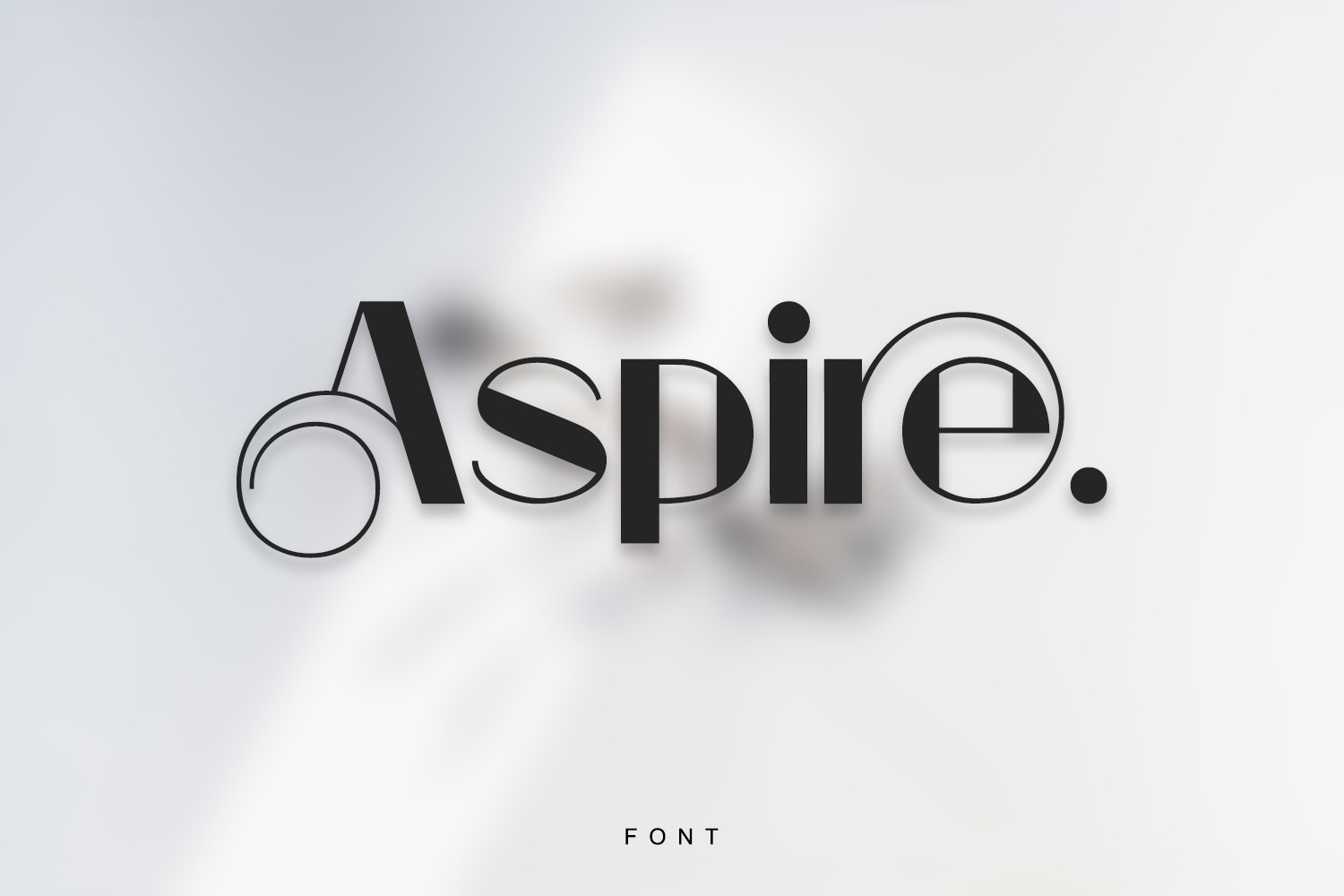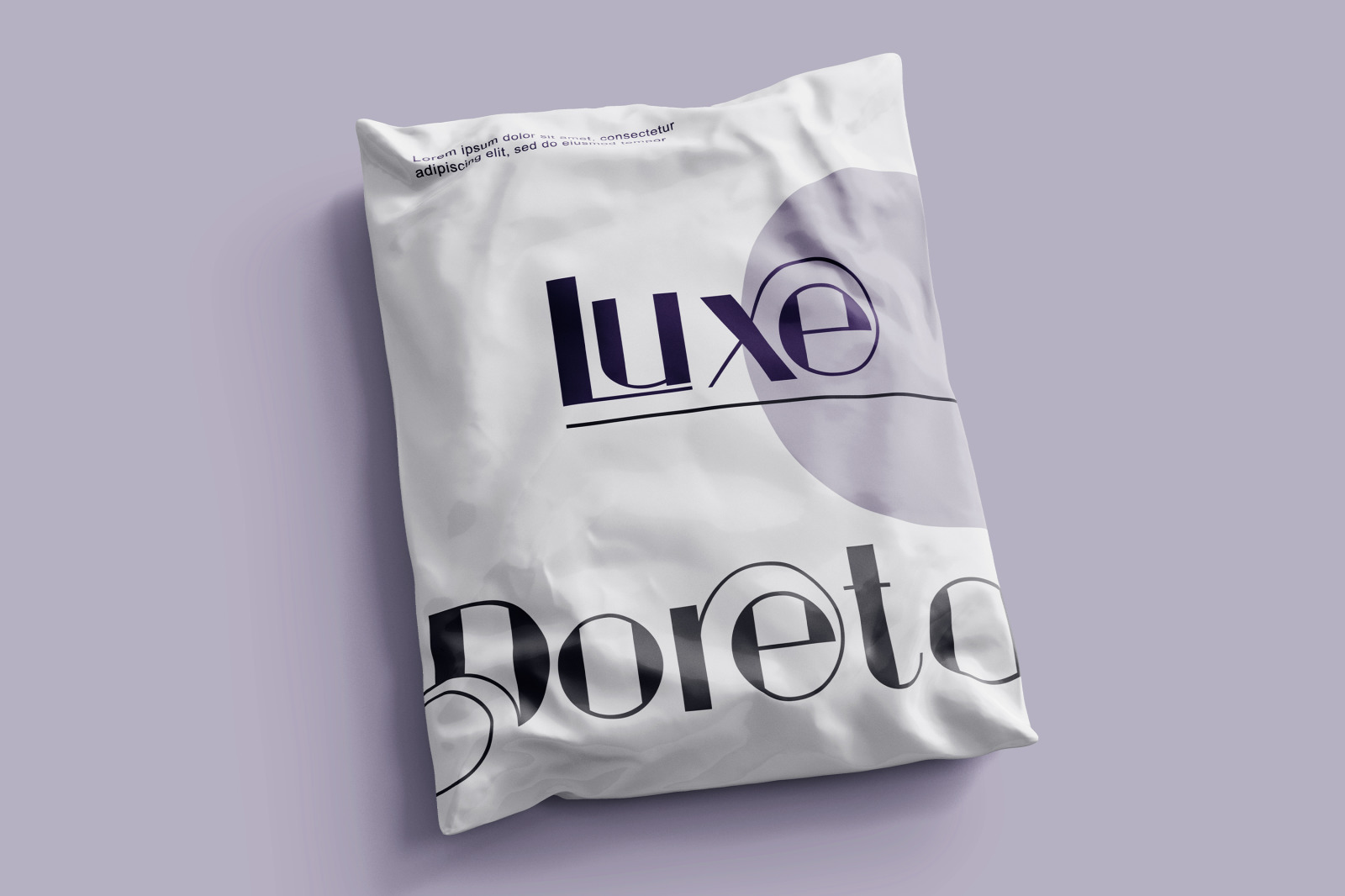
Aspire Font
Aspire Font is a new display font with cool ligature characters. It’s a delightful font with elegant style that will be great for any branding project.
This font is Mainly used for luxury, fashion, and stylish statements with a special charm that makes it perfect for beautiful headlines, branding, logotypes & display usage. This font is also perfect for creating outstanding logos, promotional content, and marketing graphics that can really grab the attention of your visitors. Please see the examples shown above to get an idea about the capability of this typeface.
Aspire Font is perfect for designs that need to have a traditional, antique feel while still being sleek and minimalist. It will look fantastic with any product name, poster, or design.
This font has 200 above glyphs and extensive Latin script support and upper and lowercase sans serif characters. Monaco carries a powerful, unique, and social character line with a premium finish, giving a new impression to keep the modernity and minimal touch for your presentations.